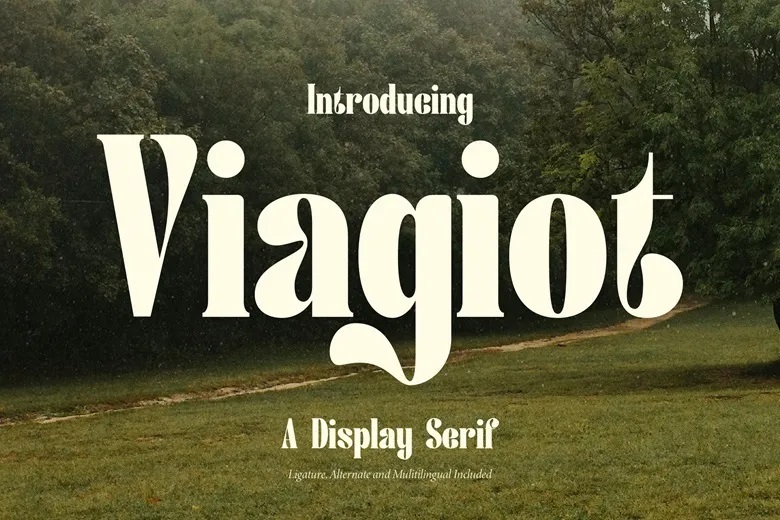
Viagiot Font
Viagiot is a display serif typeface designed with the elaborate and potent strokes of letters. It looks somewhat minimalist, contemporarily traditional, which can be effectively used for striking titles, headlines or logos. It just looks different and helps add character to any project that it’s incorporated into.
Viagiot Serif Font